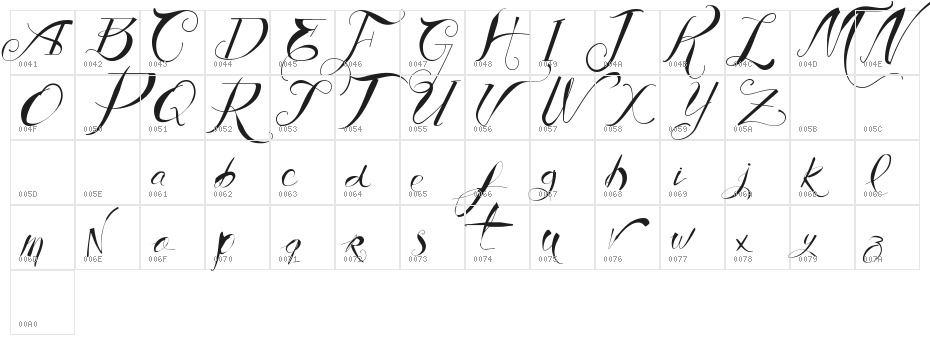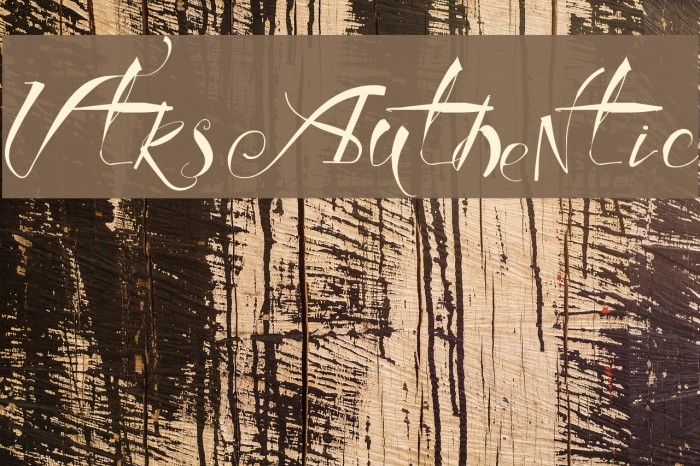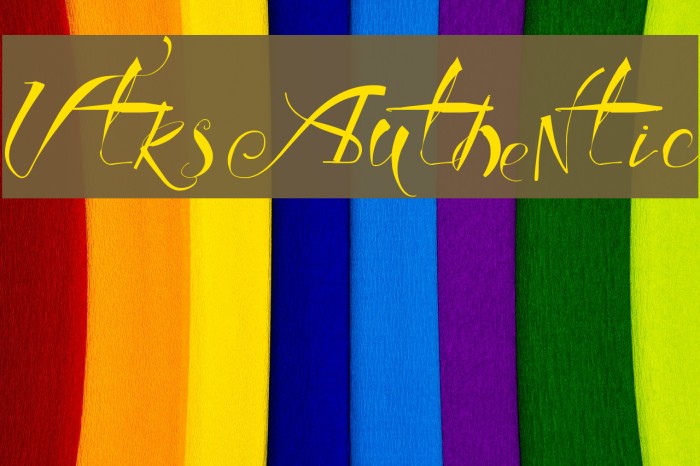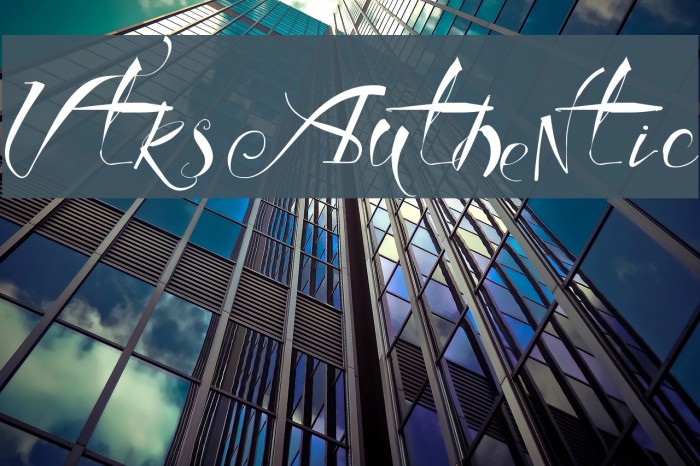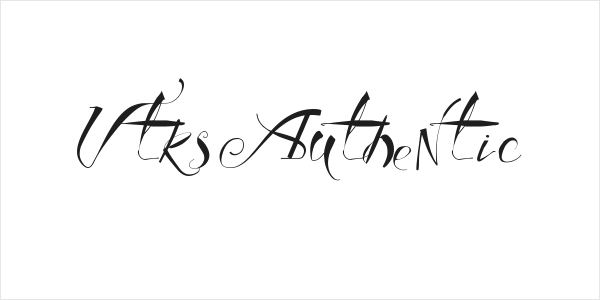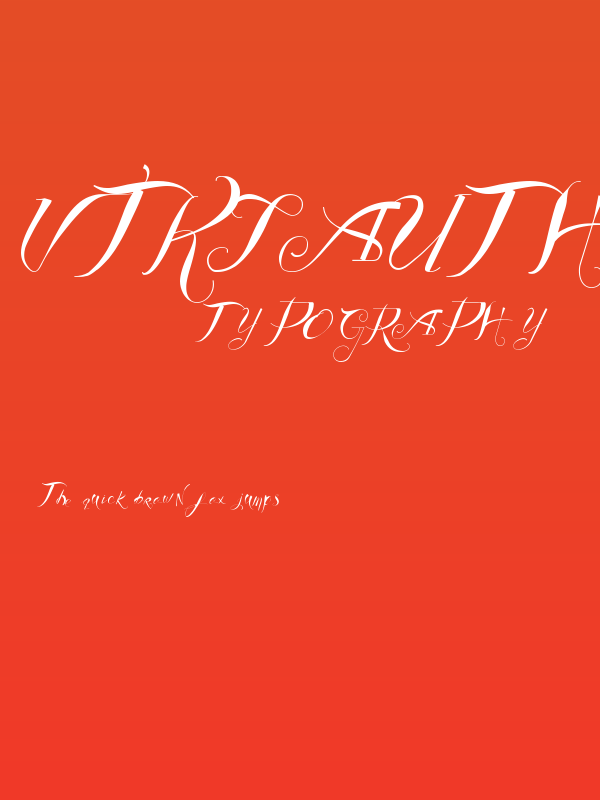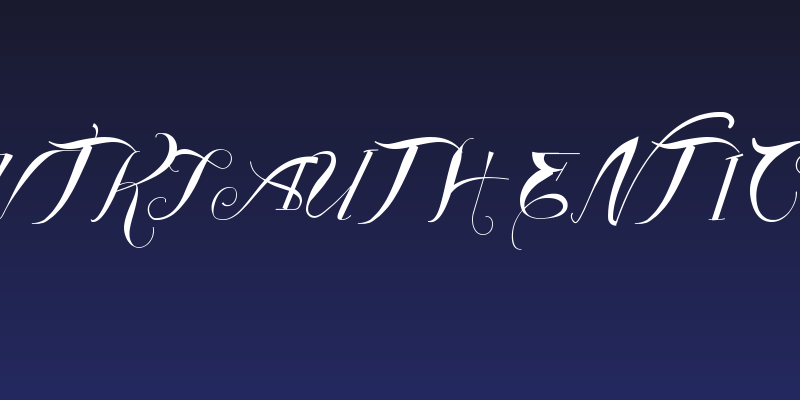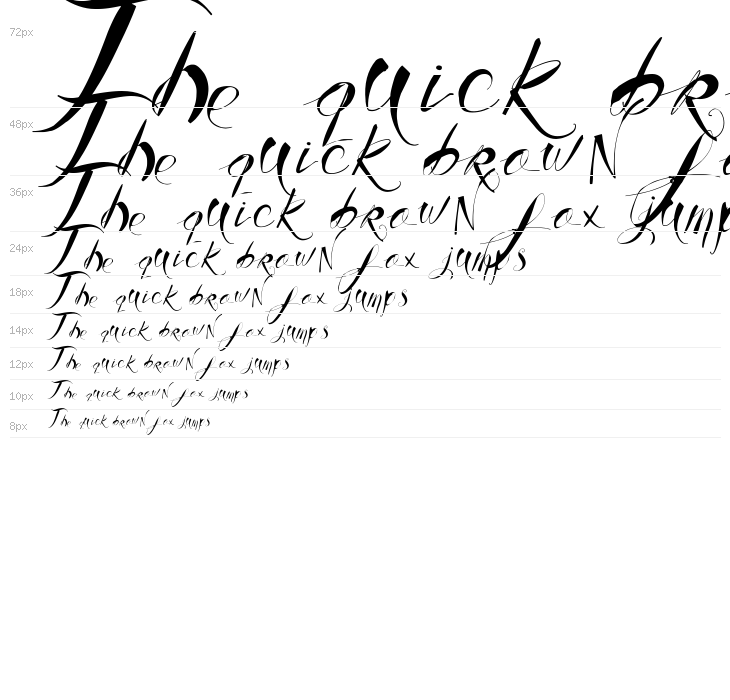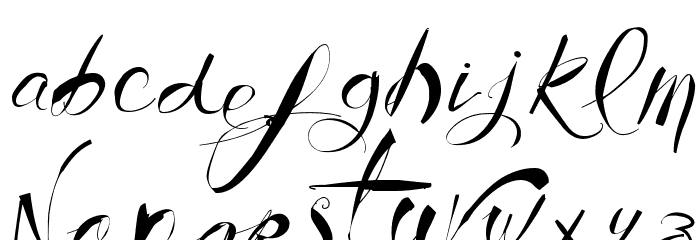
Vtks Authentic Font
Vtks Authentic Description
This font features an elegant and flowing script style, characterized by its intricate swirls and flourishes. The uppercase letters are particularly ornate, with extended loops and curves that give a sense of movement and grace. The lowercase letters maintain a consistent style, with a slight slant that enhances the handwritten feel. The overall design is sophisticated, making it suitable for formal invitations, branding, and decorative purposes. The font's artistic flair is evident in its unique character shapes, which blend traditional calligraphy with a modern twist.
| Proposed Projects | Ideal for wedding invitations, luxury branding, greeting cards, and decorative artwork. |